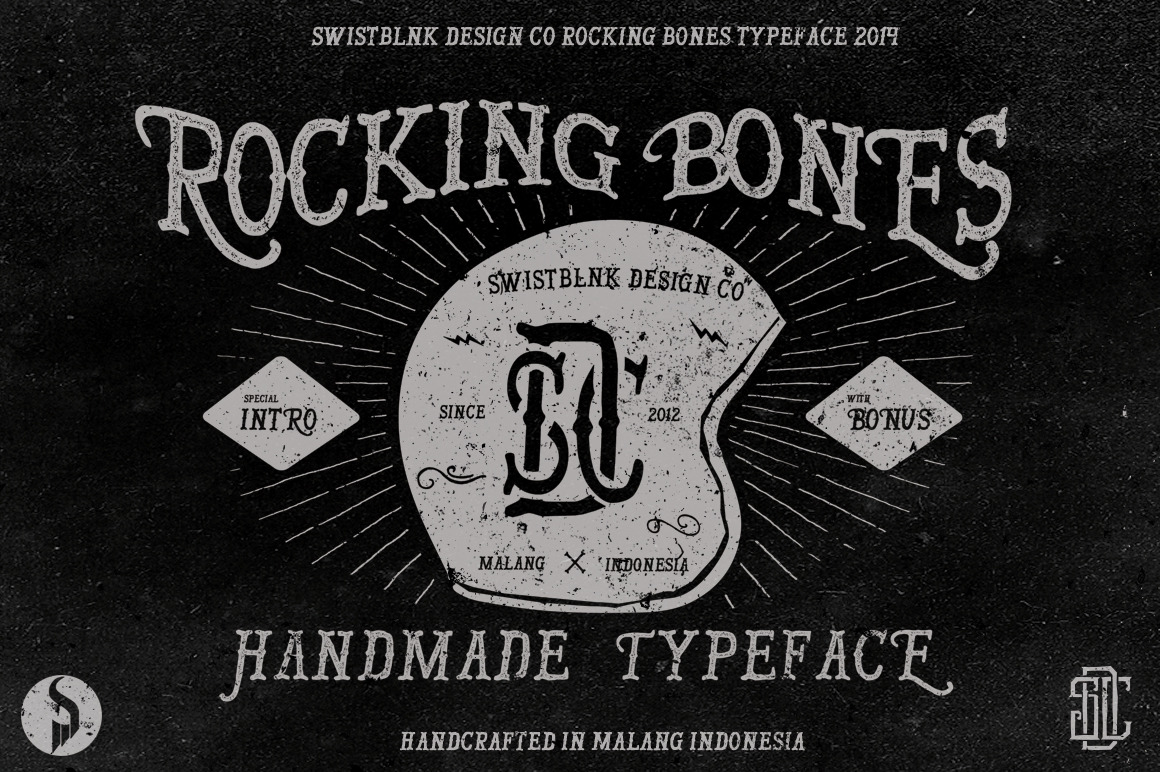
Rocking Bones Typeface
Rocking Bones with Bonus
Rocking Bones is Serif Handdrawn like a Bone with handmade feel. You can use this font as creative as you want. Just imagine and touch the sky. With bonus vector pack from our Vintage Hand Drawn Style Logos And Badges :
Includes 2 weights ;
- Rocking Bones Regular
- Rocking Bones Vintage